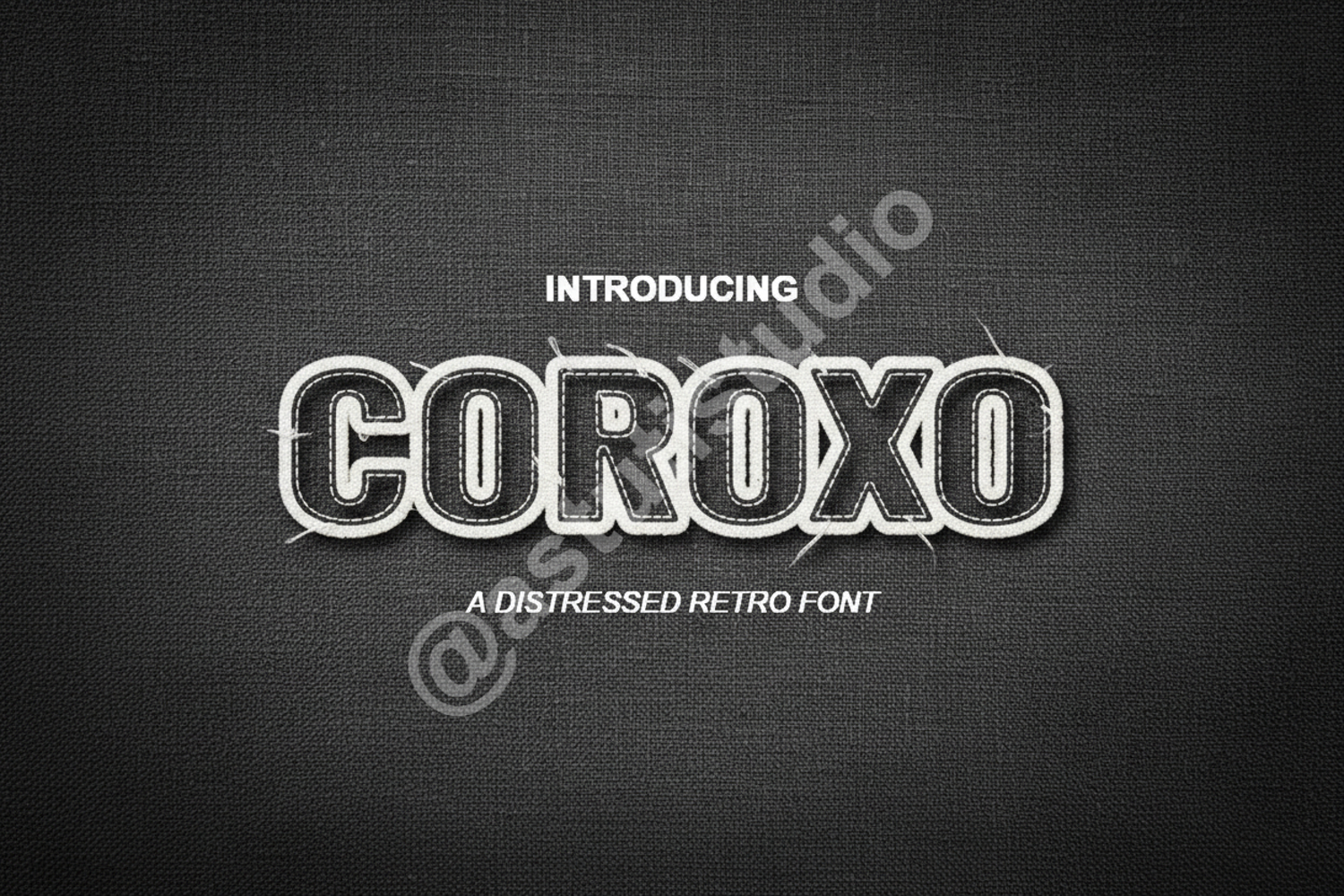
Coroxo - Modern Geometric Sans Serif
Coroxo
Coroxo is a premium geometric sans serif font crafted with precision and modern aesthetics in mind. Featuring clean lines, balanced proportions, and a sophisticated silhouette, Coroxo is designed to bring a professional touch to any creative project. Whether you are building a brand identity or designing a high-end editorial layout, this font offers the versatility and clarity needed for exceptional results.
- Full character set including uppercase and lowercase
- Comprehensive numbers and punctuation
- Extensive multilingual support for global reach
- Branding and Identity: Create memorable logos and professional corporate stationery.
- Editorial Design: Perfect for magazine headers, body text, and book covers.
- Digital Marketing: Enhance social media graphics and website user interfaces.
- Print Media: Ideal for high-impact posters, brochures, and luxury packaging.